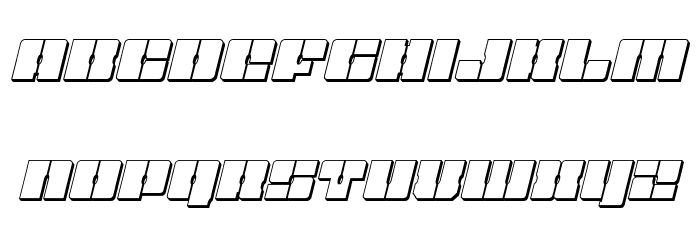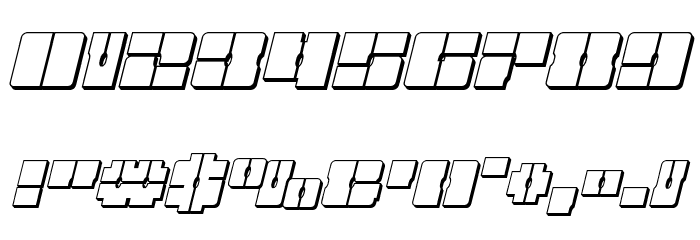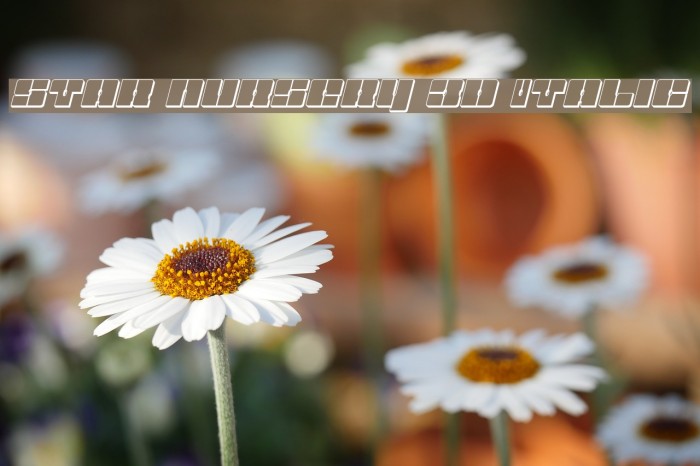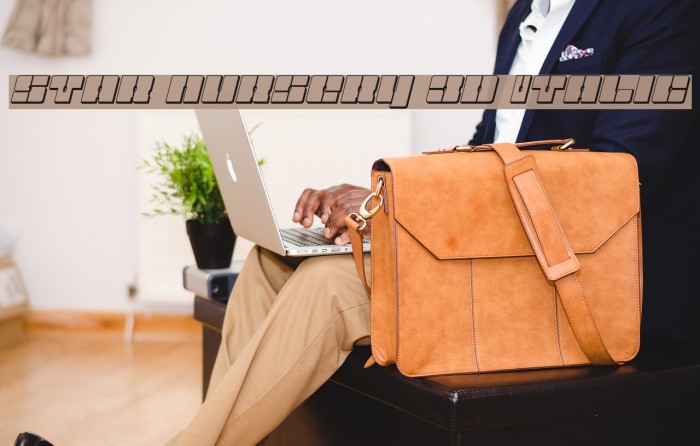
Star Nursery 3D Italic Font
This font features a bold, three-dimensional design with a futuristic and geometric aesthetic. Each character is outlined with a shadow effect that gives it a distinct 3D appearance, making it stand out on any page. The letters are italicized, adding a dynamic and forward-leaning look. The font maintains a consistent width across all characters, providing a uniform appearance. The spacing between characters is tight, enhancing the compact and cohesive feel of the text. The overall style is modern and decorative, suitable for projects that require a bold and eye-catching typeface.
A bold, 3D italic font with a futuristic and geometric style.
- Proposed Projects: Ideal for sci-fi themed posters, video game titles, and futuristic branding materials.
- Character Spacing: Tight